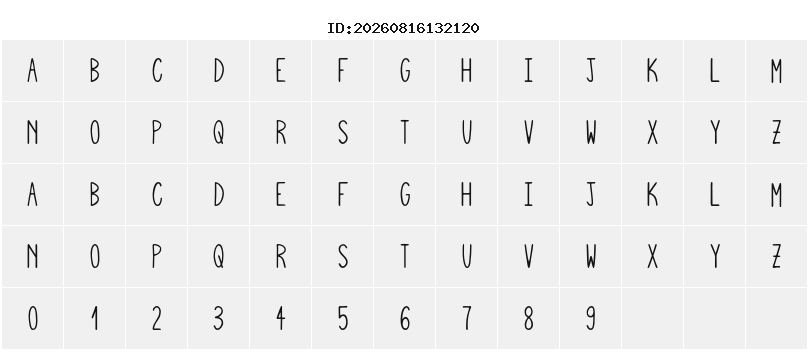
Squiggly Asta Preview
• Font Name: Squiggly Asta
• Full Font Name: SquigglyAsta
• PostScript Name: SquigglyAsta
• Designer: Ana Parracho
• Manufacturer: Ana Parracho
About Squiggly Asta.otf
Squiggly Asta.otf is a modern, elegant sans-serif font designed for ultimate readability and visual harmony. Perfect for branding, headlines, web design, and print materials.